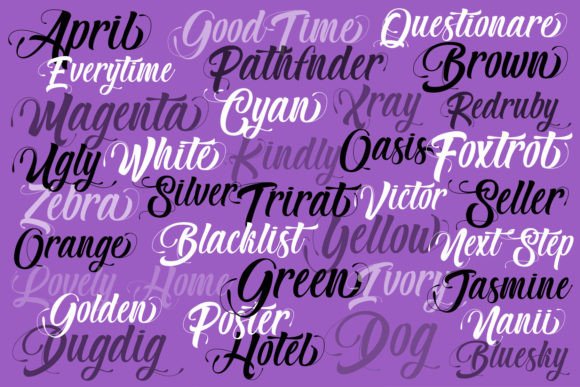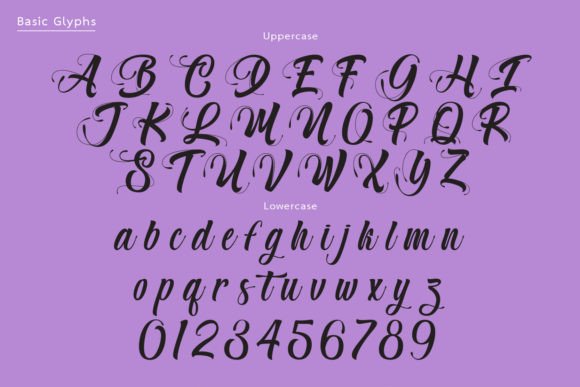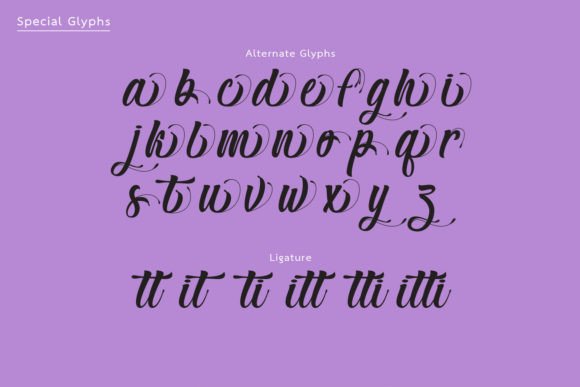
Discover the Allure of Mister Grape Font
Remember the moment when you stumbled upon the perfect font for your creative project? The one that instantly sparks inspiration and elevates your design to the next level? For designers, finding that elusive font can be a game-changer, and for those who love vintage charm, the Mister Grape Font is a treasure trove of creative possibilities.
As a design resource, the Mister Grape Font stands out with its unique, retro-inspired design that brings the elegance of handwritten letters to life. With its flowing, brush-stroke-like strokes and delicate tails, this font is perfect for adding a touch of vintage flair to your designs, from advertising materials to promotional graphics. Whether you’re working on a project that requires a high-quality, transparent background or a free download for your next creative venture, the Mister Grape Font is an excellent choice that’s sure to impress.
Key Features of Mister Grape Font
- Designed with a unique, playful style that adds a touch of whimsy to any design
Honest Review: Mister Grape Font
I recently had the opportunity to work with the Mister Grape Font, and I must say it’s a great addition to my design resource library. The free download was a welcome surprise, and I was excited to see how it would perform on my creative project.
The Mister Grape Font is a high-quality font that features a fun and playful design. It’s perfect for adding a touch of whimsy to your designs, and the transparent background makes it easy to use on any background.
- Fun and playful aesthetic that’s sure to grab attention
- Transparent background makes it easy to use on any background
- Only a few styles to choose from, which may limit its versatility
- Not ideal for formal or professional projects
- Some users may find the design too playful or childish
Overall, I’m impressed with the Mister Grape Font. It’s a great option for designers who want to add a touch of personality to their designs. While it may have some limitations, it’s a great addition to any design library.
How to Use Mister Grape Font
Mister Grape Font is a unique and versatile design resource perfect for creative projects. This free download offers a high-quality, customizable font ideal for adding a touch of personality to your designs.
Tips for Getting the Most Out of Mister Grape Font
Experiment with different font sizes, colors, and combinations to find the perfect look for your design. Use Mister Grape Font in conjunction with other design elements to create visually appealing graphics.
Mister Grape Font is perfect for social media graphics, presentations, posters, and other creative projects where a unique and customizable font is required.
Alternatives to Mister Grape Font
Caviar Dreams Font
Caviar Dreams Font is a high-quality, elegant font suitable for luxury brand designs, weddings, and other creative projects. It features a transparent background and is available for free download. When to use: upscale designs, invitations, and luxury branding. Compared to Mister Grape Font, Caviar Dreams has a more sophisticated and luxurious feel.
Lato Font is a clean and modern sans-serif font that works well for web design, mobile apps, and other digital projects. It’s available for free download and features a transparent background. When to use: modern designs, tech startups, and minimalist branding. Compared to Mister Grape Font, Lato has a more neutral and clean look.
Playfair Display Font is a high-end, luxurious serif font suitable for premium designs, fashion branding, and creative projects. It features a transparent background and is available for free download. When to use: high-end fashion designs, luxury branding, and premium invitations. Compared to Mister Grape Font, Playfair Display has a more elegant and sophisticated feel.
Yes, the Mister Grape Font includes a transparent background option, allowing for seamless integration with your design. This feature is particularly useful for creative projects that require a high level of design flexibility.
Q: What is the resolution and quality of the Mister Grape Font?
The Mister Grape Font is available in high-quality resolution, making it suitable for a wide range of design applications. The font is optimized for use at various sizes, from small text to large headlines, ensuring a crisp and clear display on both digital and print media.